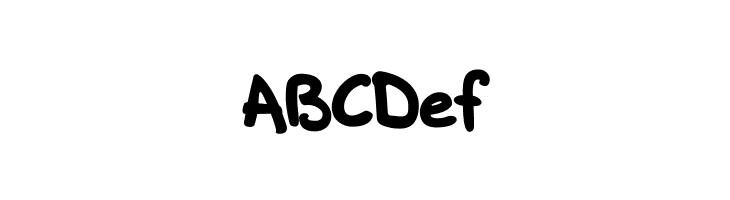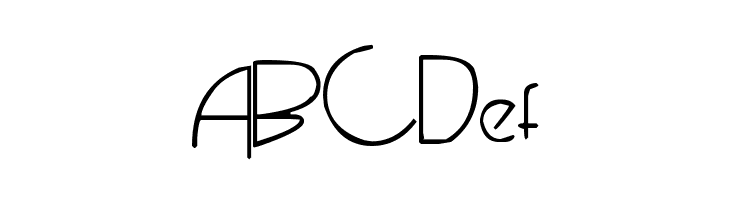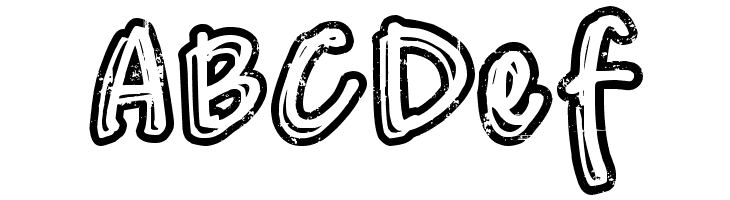
• DJB This is Me 2
• DJB This is My Life
A playful, handwritten font with tall, narrow letters and smooth curves.
• DJB This Moment
A casual, expressive handwritten font with fluid, connected strokes.
• DJB Tia
A playful, informal handwritten font with smooth, rounded strokes.
• DJB To Be Continued
A whimsical, hand-drawn script font with playful loops and curves.
• DJB TOOTSIE WOOTSIE BOLD Bold
A playful, bold font with thick, rounded strokes and a whimsical style.
• DJB TOOTSIEWOOTSIE
A playful, decorative font with polka dots and stripes, perfect for creative projects.
• DJB TREASURE HUNT
A whimsical, hand-drawn font with a playful, treasure map theme.
• DJB Tweenybopper
• DJB Uncertain Tense
A playful, handwritten font with bold, rounded strokes and a casual style.
• DJB Upstairs at the Abbey
A playful, handwritten font with outlined characters and a whimsical style.
• DJB Vintage Find
A bold, hand-drawn font with a vintage, textured style.
• DJB Vintage Find Distressed Bold
A bold, distressed font with a vintage, handcrafted appearance.
• DJB WERECOW OF DANVILLE
A playful, handwritten font with bold strokes and a casual, energetic style.
• DJB What a Babe
A playful, handwritten font with fluid, dynamic strokes and a casual style.
• DJB Woke Up Late
A playful, casual handwritten font with a friendly and approachable style.
• DJB Worn at the Knees
A playful, distressed font with a hand-drawn, textured appearance.
• DJB Writes a Lot
A playful, bold handwritten font with rounded, consistent strokes.
• DJB Yard Sale Marker Bold
• DJB You Make Me Blush
A whimsical, hand-drawn font with curly embellishments and a playful style.
• DJB Zora Prints